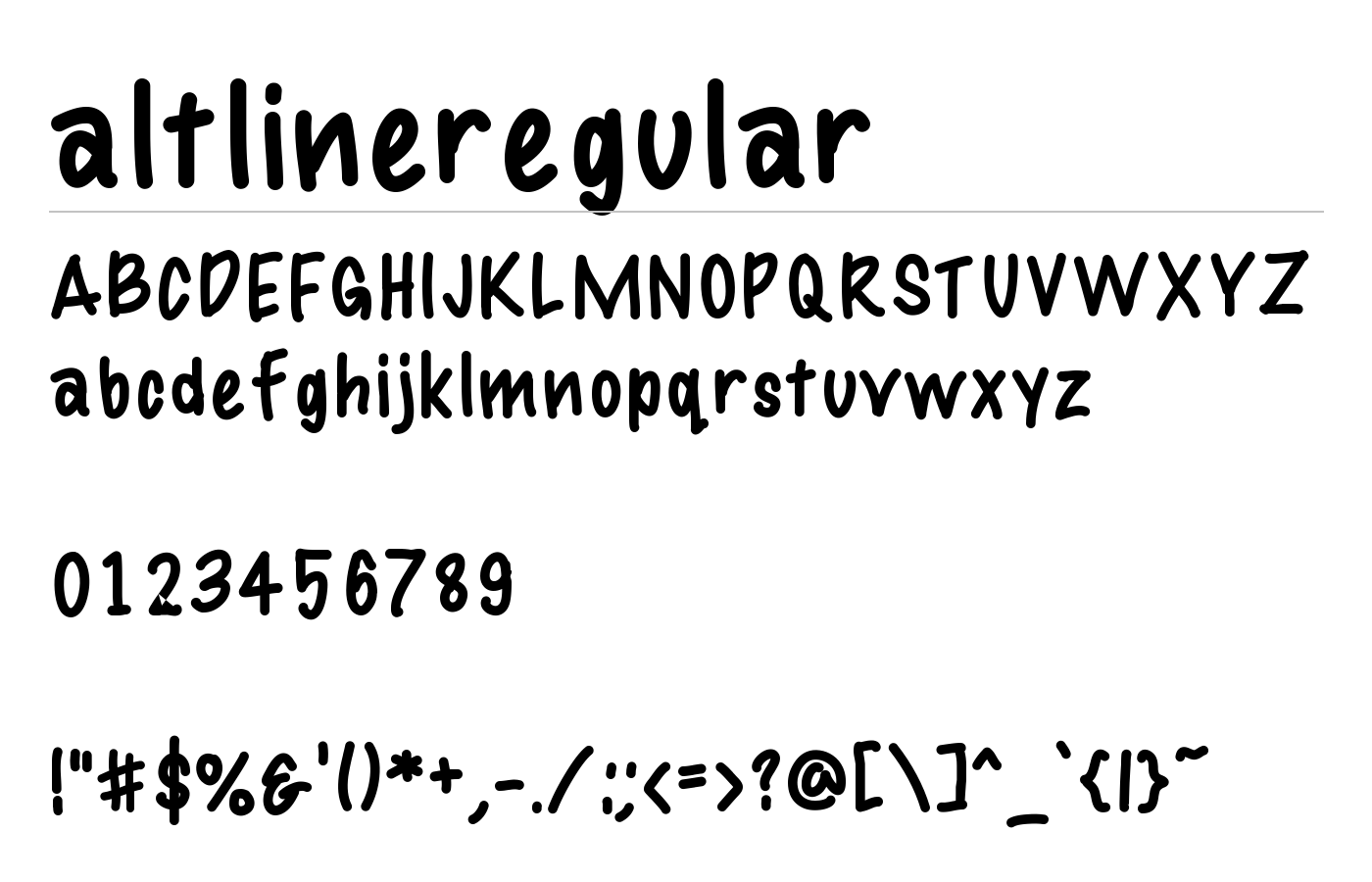
Altlineregular is a playful and casual handwritten sans serif font characterized by its rounded, smooth strokes and slightly irregular letterforms, giving it a friendly and approachable feel. Its medium weight and moderate x-height make it highly readable while maintaining a relaxed, informal style that suits creative projects, children's content, and lighthearted branding. This font works well for headlines, logos, and packaging where a personal, warm tone is desired.